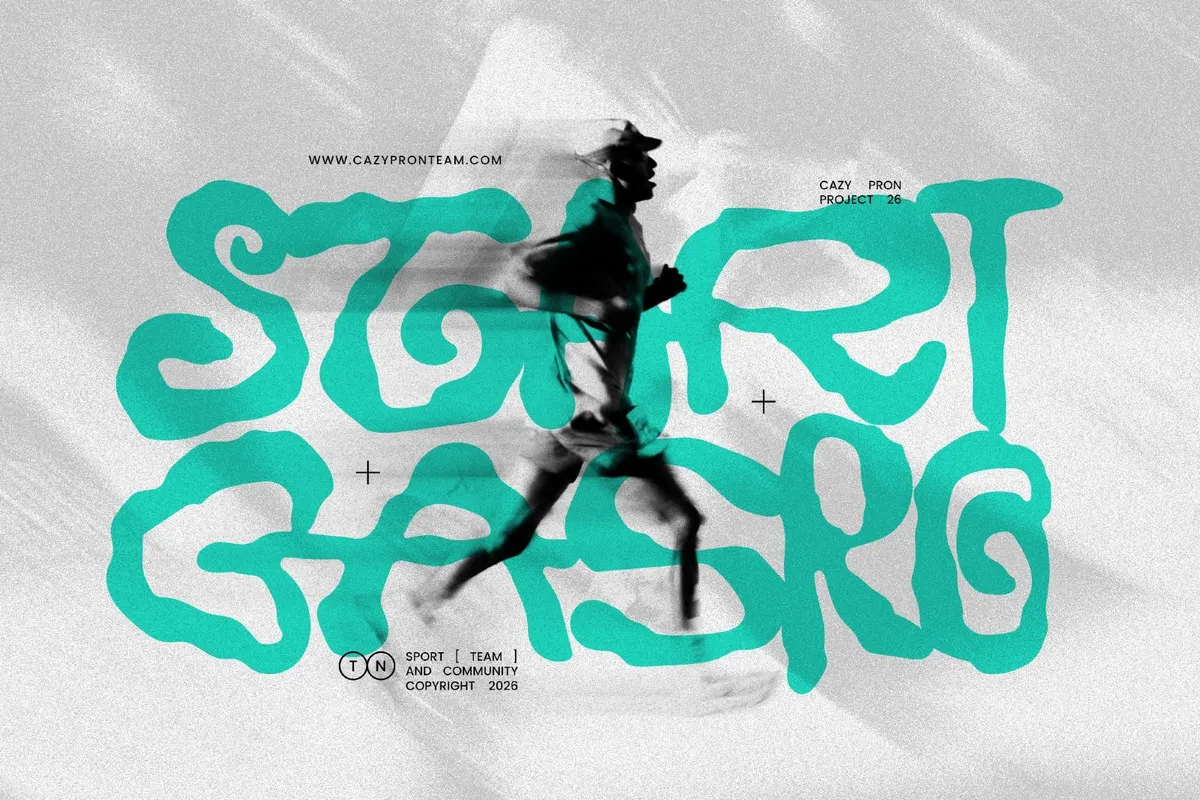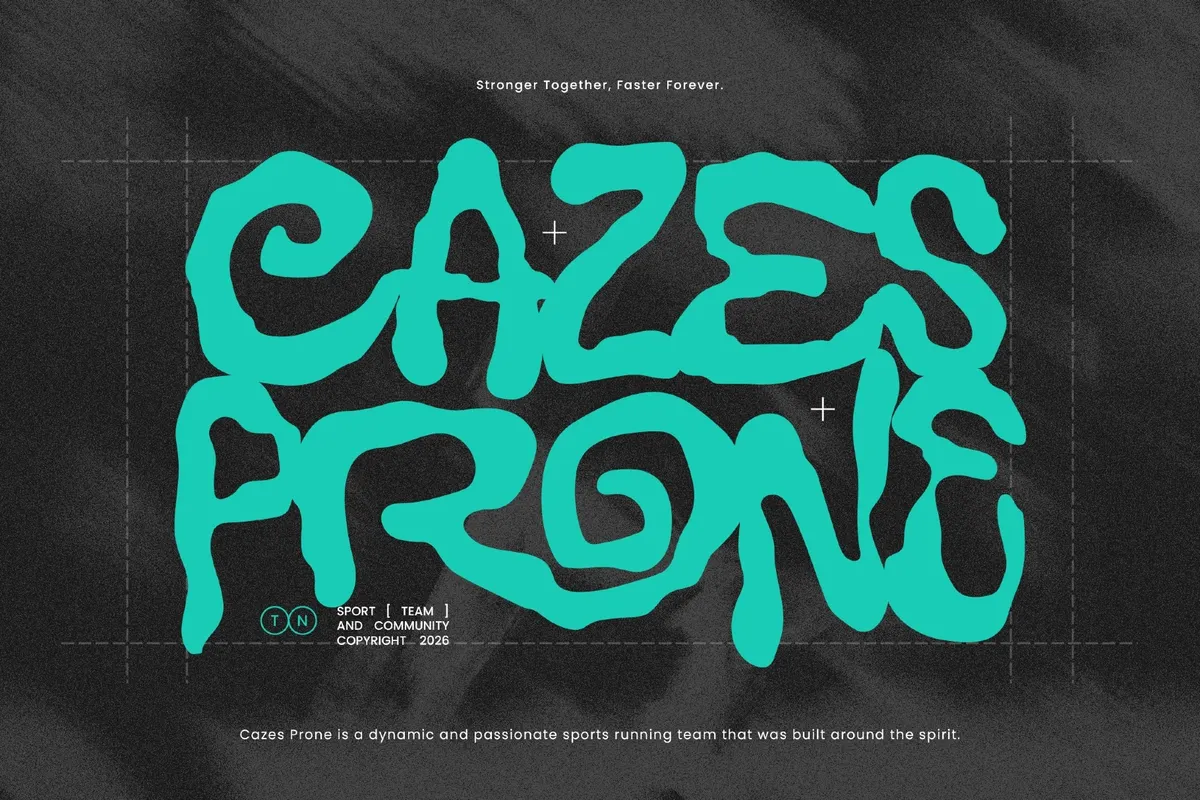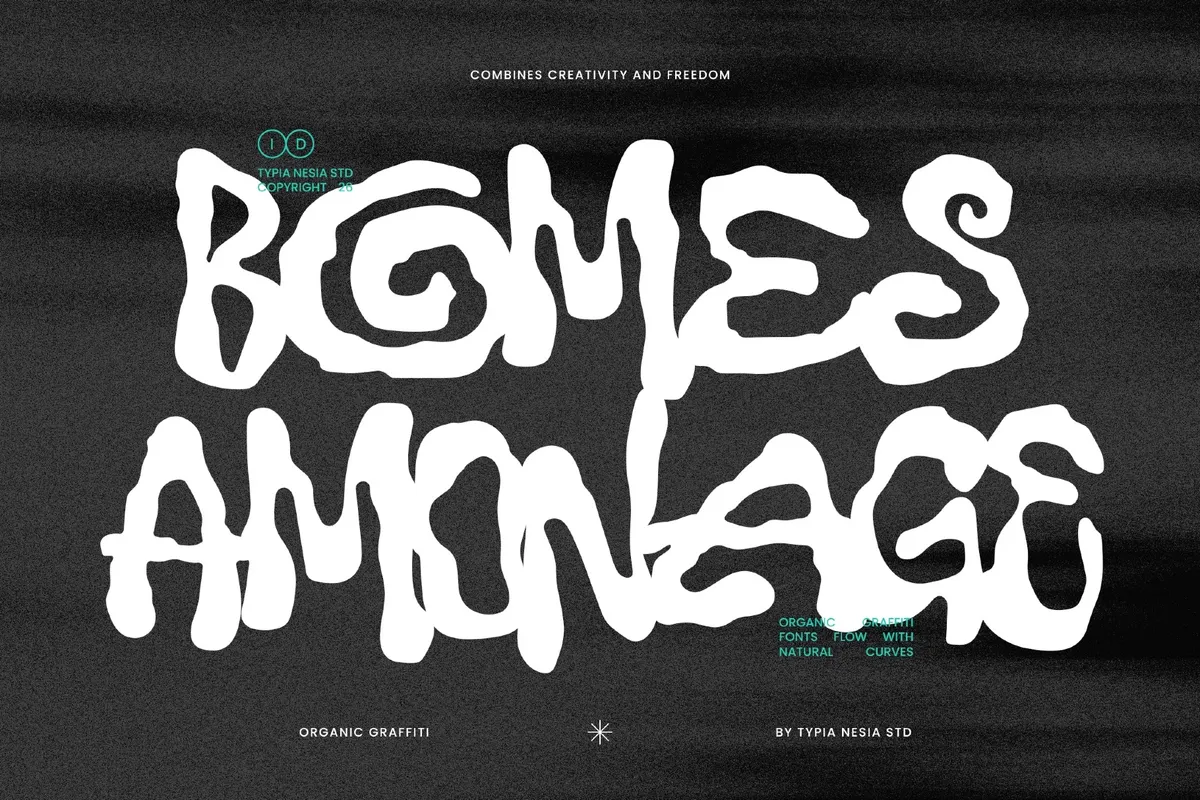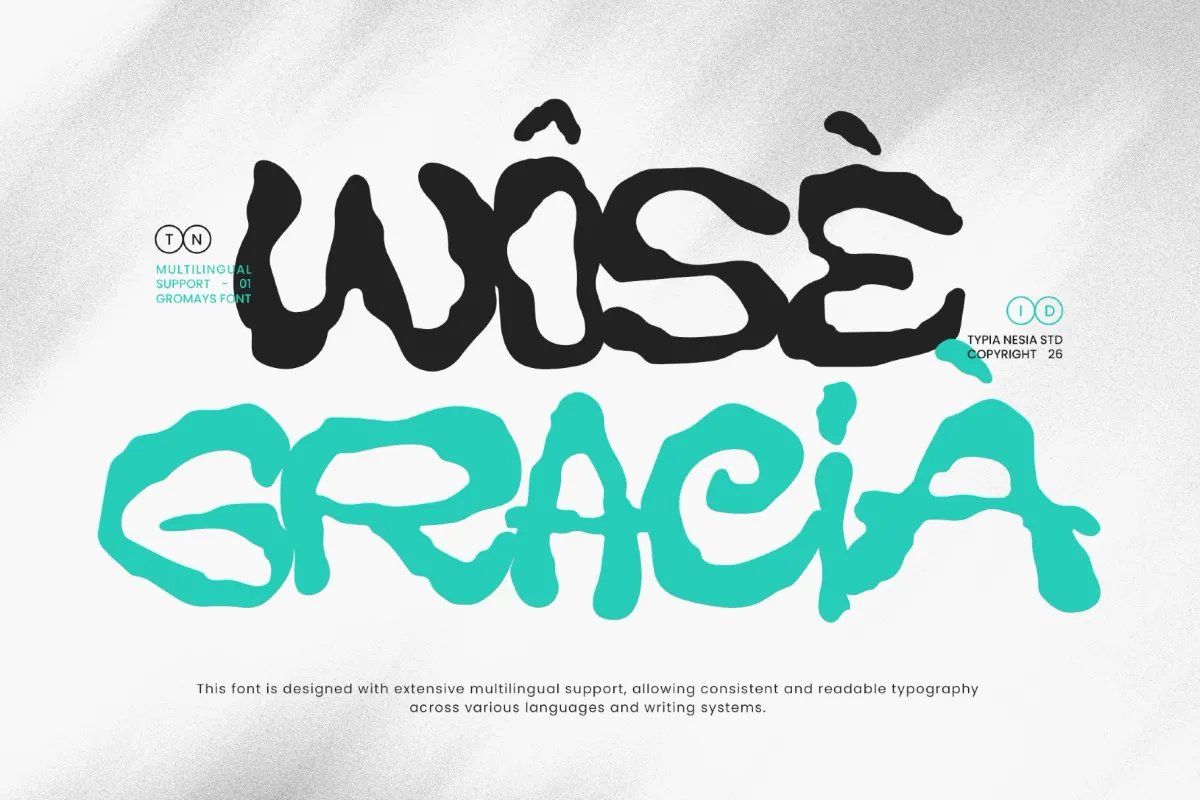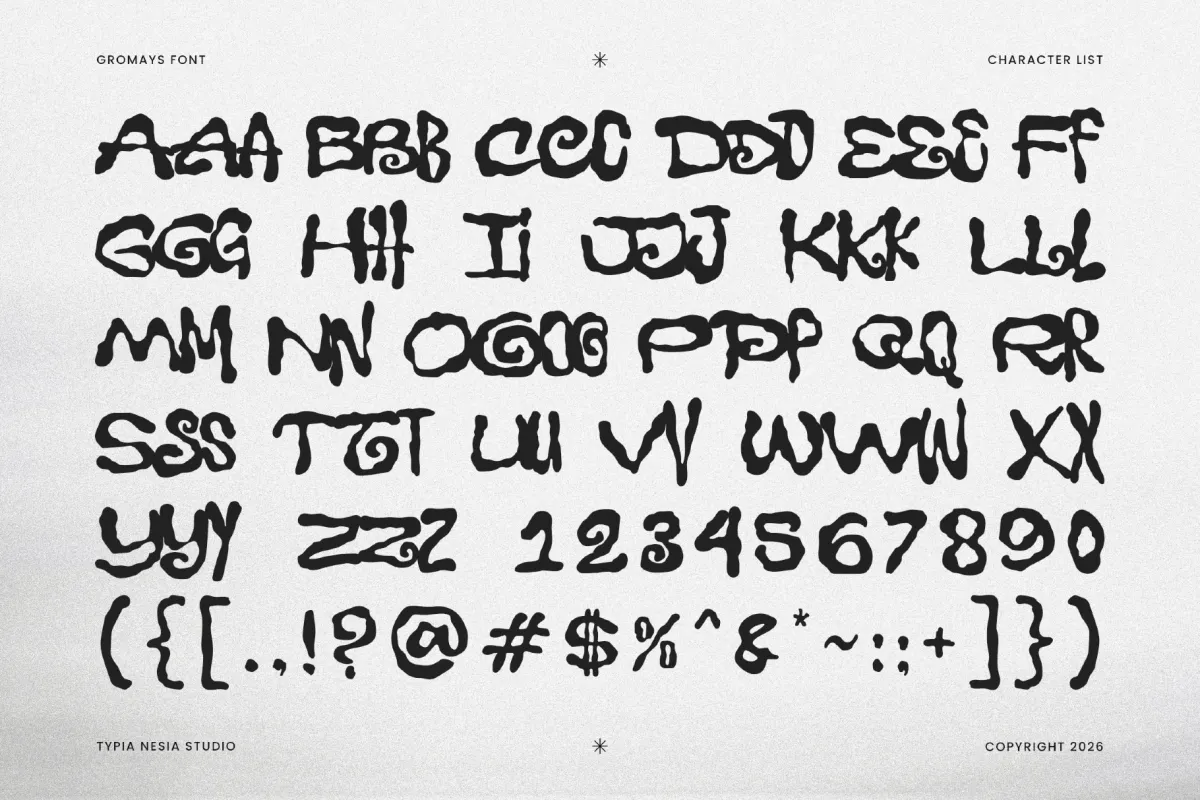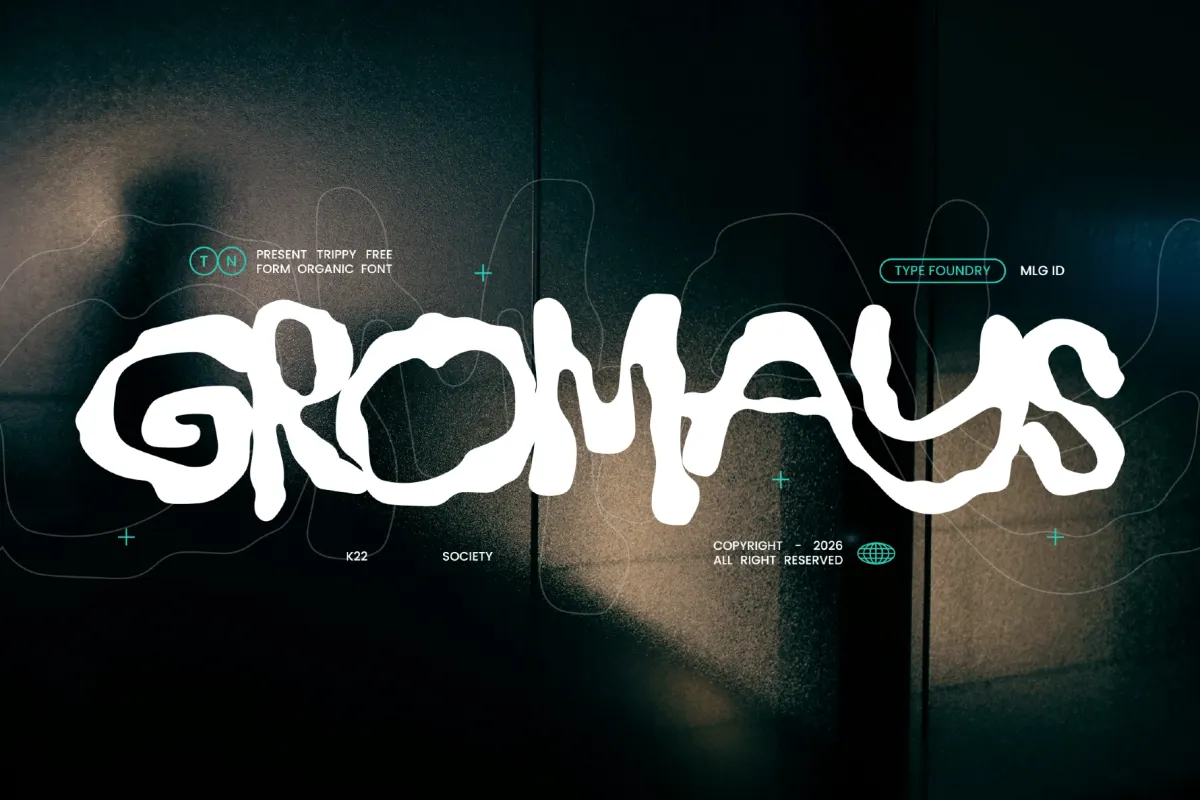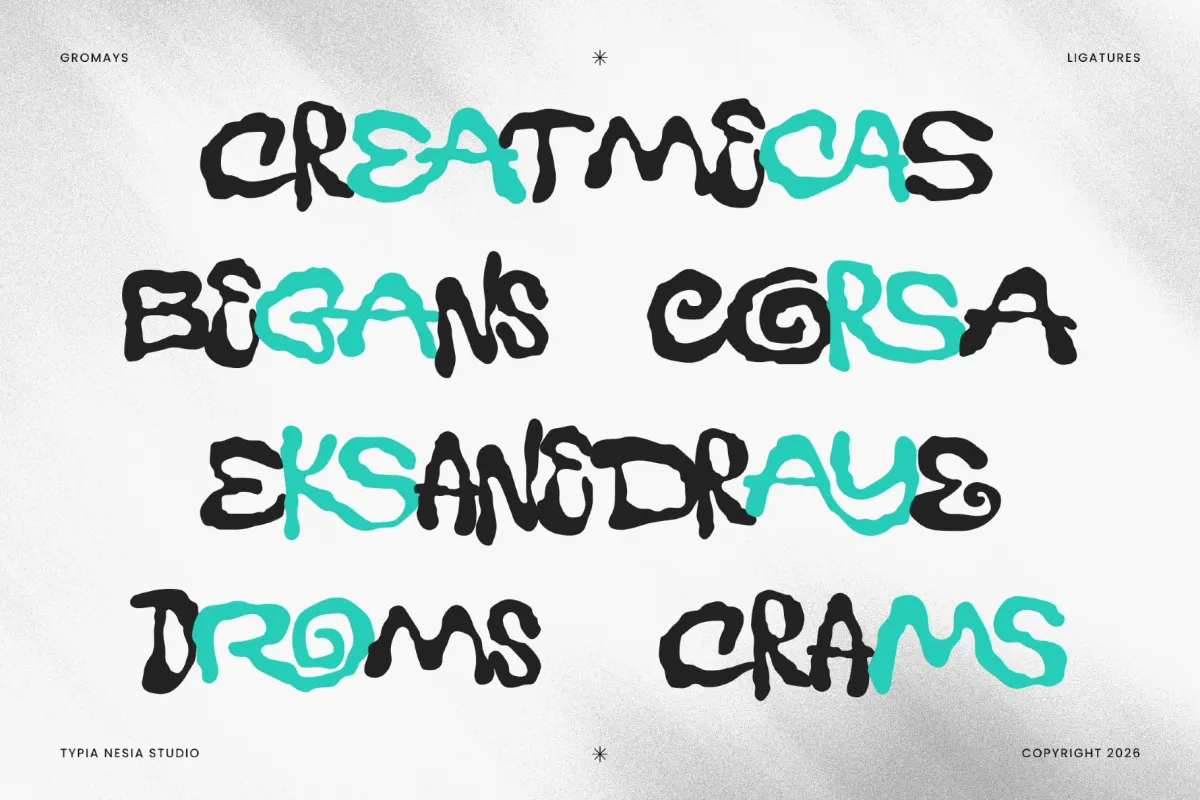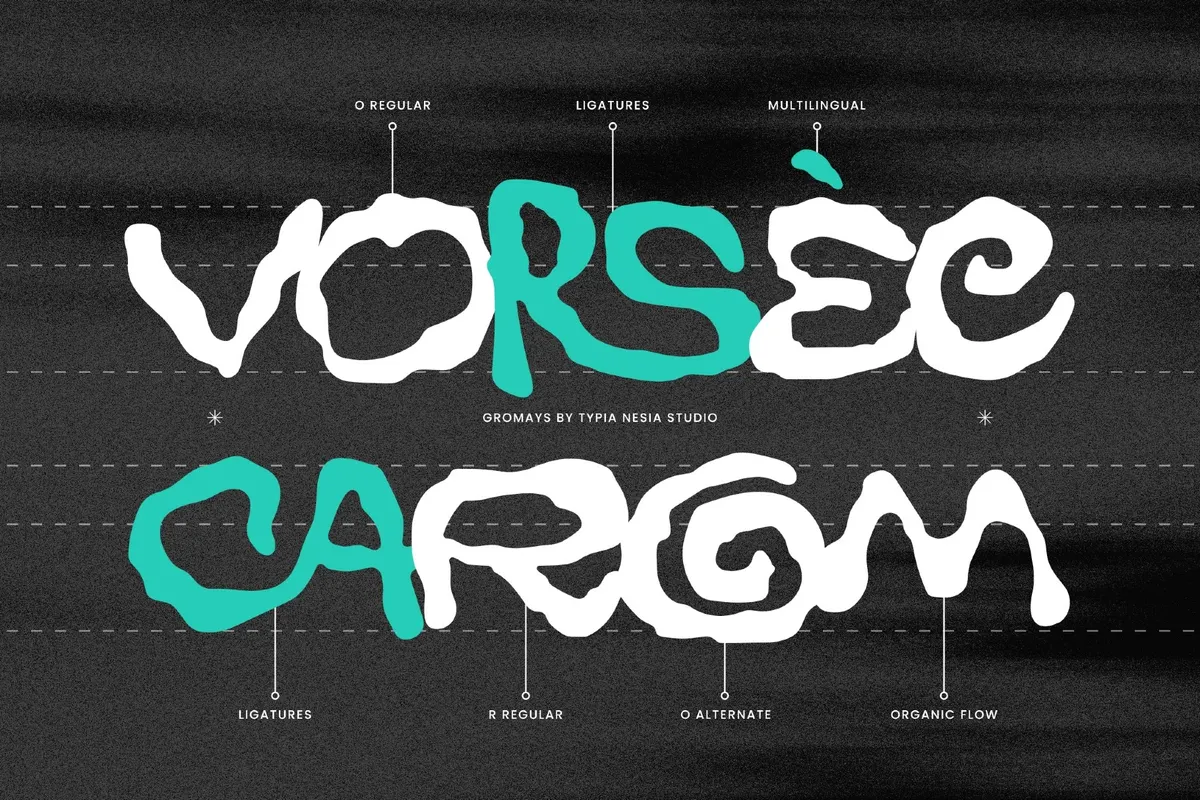
Gromays - Trippy Psychedelic Display Font
Gromays
Gromays melts capital letters into fluid, dripping shapes, closer to spray-painted wall art than a drafted alphabet. Curves swell and taper like wet ink under pressure, giving every word an unpredictable, hand-warped rhythm — Gromays reads as a trippy graffiti display font built for oversized, attention-grabbing type.
The distortion holds up best at large sizes and short bursts of text, where the organic wobble stays legible instead of turning into noise. Use it for music posters, album covers, festival branding, streetwear graphics, event flyers, and other loud, experimental layouts.
- uppercase & lowercase;
- numerals, punctuation & symbols;
- ligatures & contextual alternate letterforms;
- multilingual support.